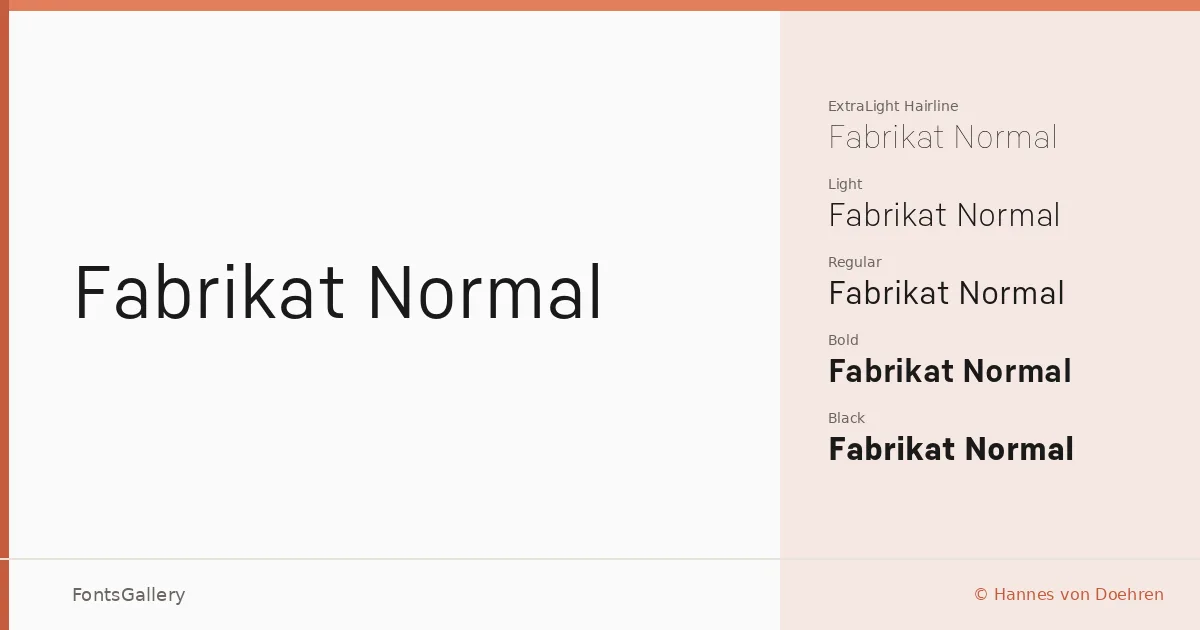
About Fabrikat Normal Font
There is a particular confidence in the way this sans-serif carries itself across weights — nothing forced, nothing decorative, just a clean geometric discipline that holds together from Hairline all the way to Black. Designed by Christoph Koeberlin and Hannes von Doehren under the HvD Fonts foundry, it draws on the kind of rational letterform construction that makes a typeface feel resolved rather than restless. The terminals are considered, the spacing measured, and the overall texture in a block of text is quietly assured.
This is a modern, minimal sans-serif with a professional register — the sort of face that reads equally well set large and tight or running through a structured layout at text sizes. The family spans fourteen styles: Hairline, Thin, Light, Regular, Medium, Bold, and Black, each with a matching Italic, all available as OTF files. The italics are genuine companions to the uprights rather than afterthoughts, and the progression across the weight range is even enough that you can mix two or three cuts within a single piece without things feeling mismatched.
It finds its footing most naturally in branding systems, magazine layouts, website headers, and business card work — anywhere a bold, minimal, professional voice is called for without unnecessary ornament. For contrast pairings, the listed companions span real stylistic range: the editorial serif warmth of Canela or ABC Arizona, the expressive calligraphic quality of Allura and Vintage Melinda, and the compressed weight of 321 Impact for moments that need a sharper shift in register.